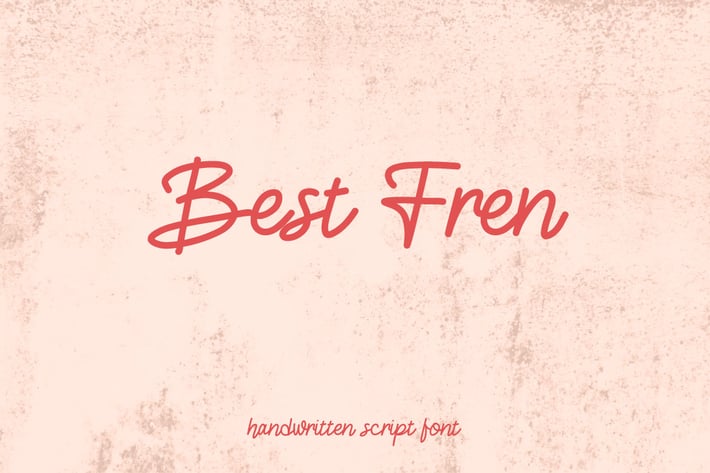
Best Fren - Handwritten Script Font
Introducing our latest creation Best Fren – a whimsical and playful handwritten script font that adds a unique charm to any project. Whether you're crafting greeting cards, designing invitations, or creating eye-catching posters, this font is the perfect choice to infuse your designs with personality and warmth.
With its organic strokes and irregular lines, this handwritten script font captures the essence of authentic handwriting, giving your text a distinctively human touch. Each character is carefully crafted to maintain legibility while retaining its hand-drawn feel, making it ideal for both headlines and body text.